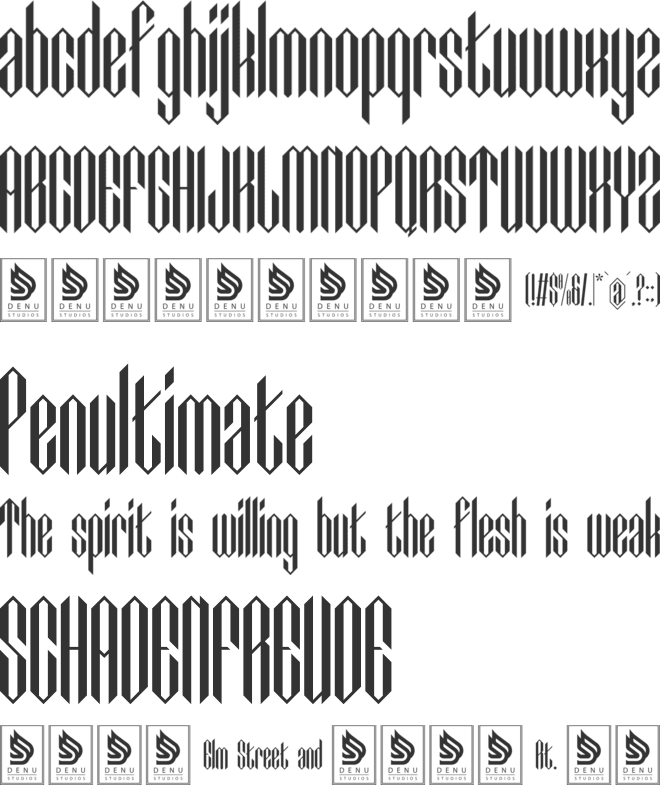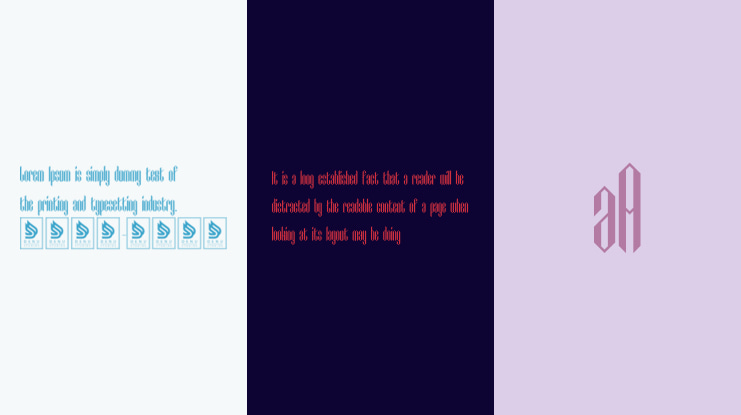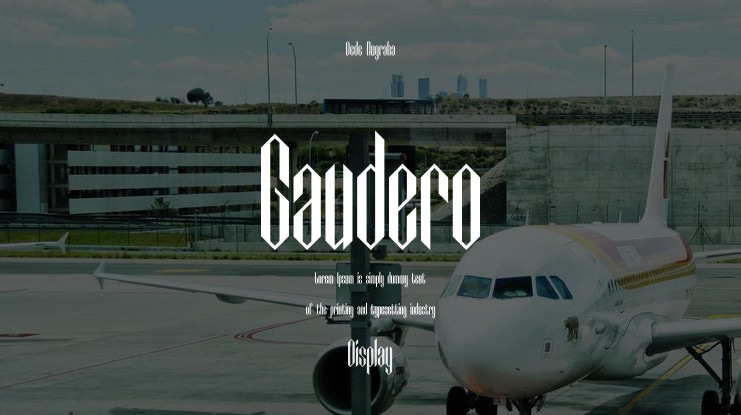
Gaudero | Display Blackletter is suitable for any projects such as: logos, branding projects, homeware designs, product packaging, mugs, quotes, posters, shopping bags, t-shirts, book covers, name card, invitation cards, greeting cards, label, photography, watermark, special events, and all your other lovely projects that need a Cute Hand Drawn taste.